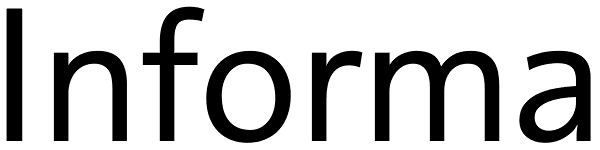
Informa
Informa is a comprehensive sans serif text family based on traditional lettering in contrast, proportion, rhythm and stroke. In particular its proportions were based on a 1978 award-winning flare-serif film type called Signa, by Swiss design trio...